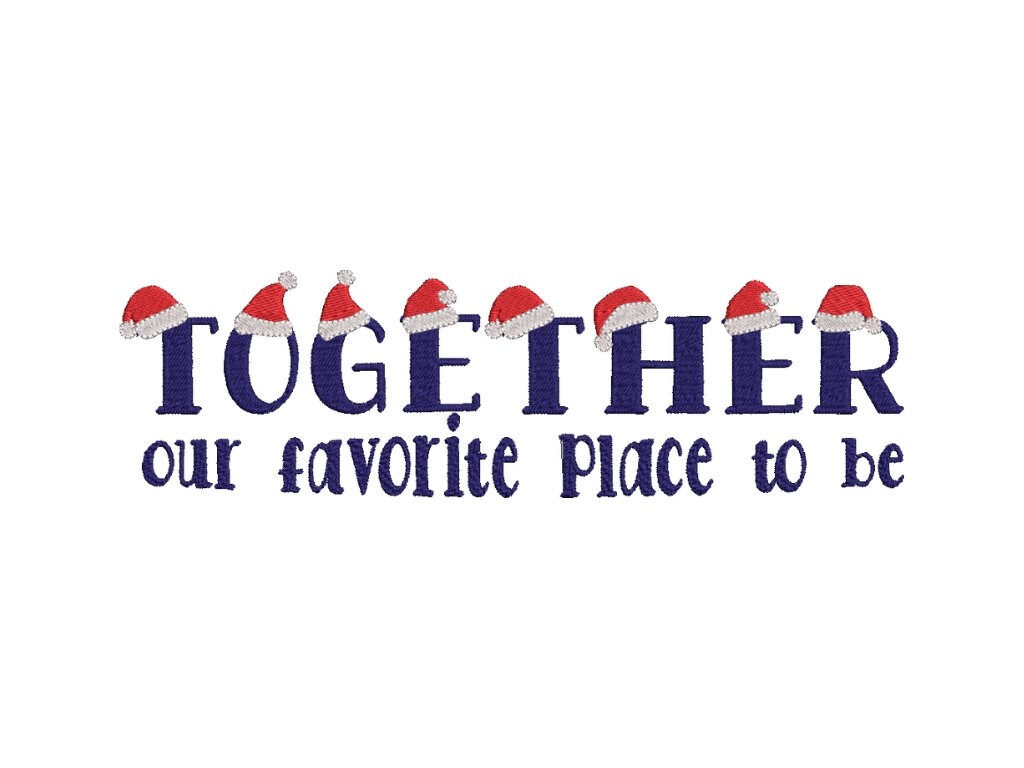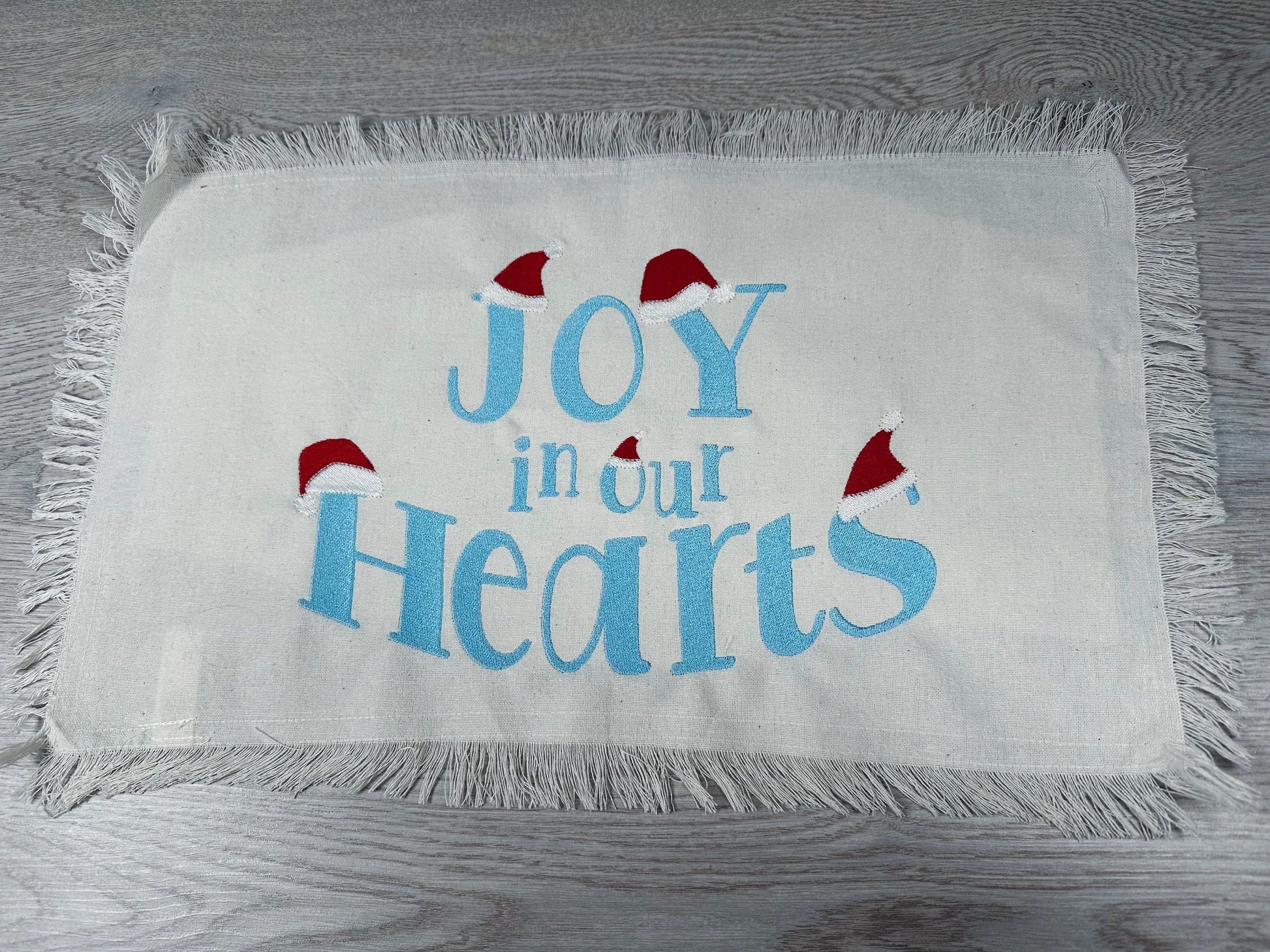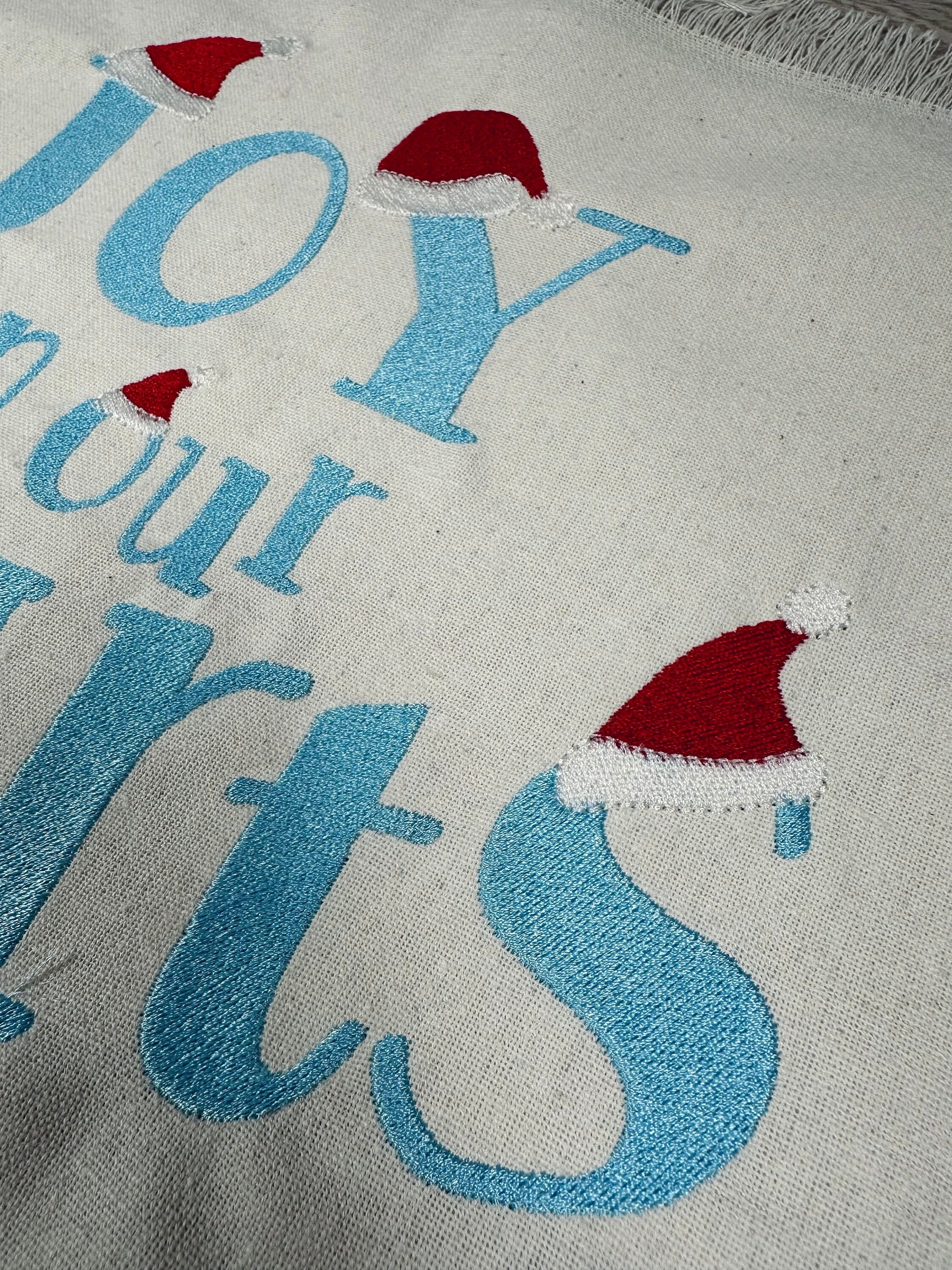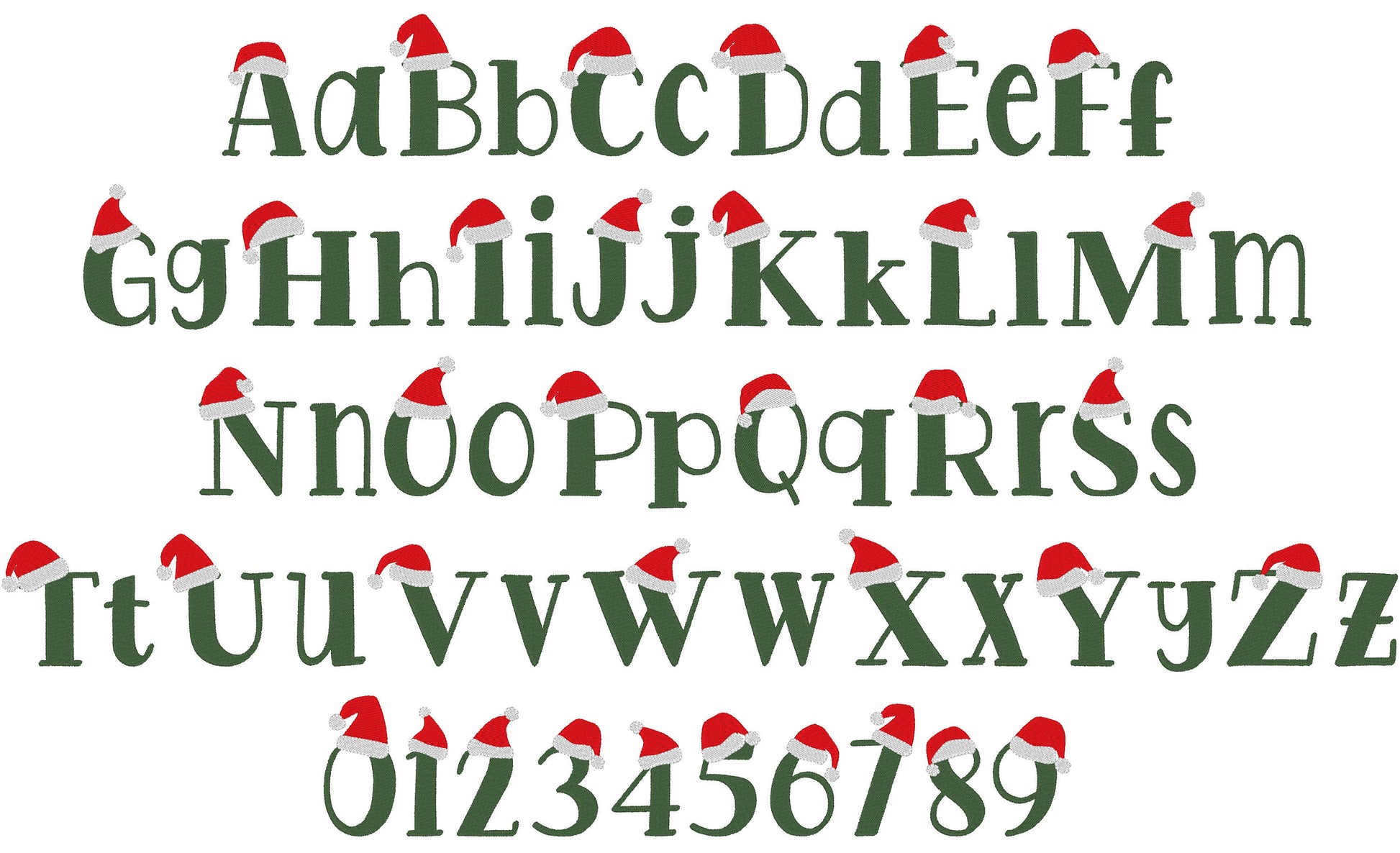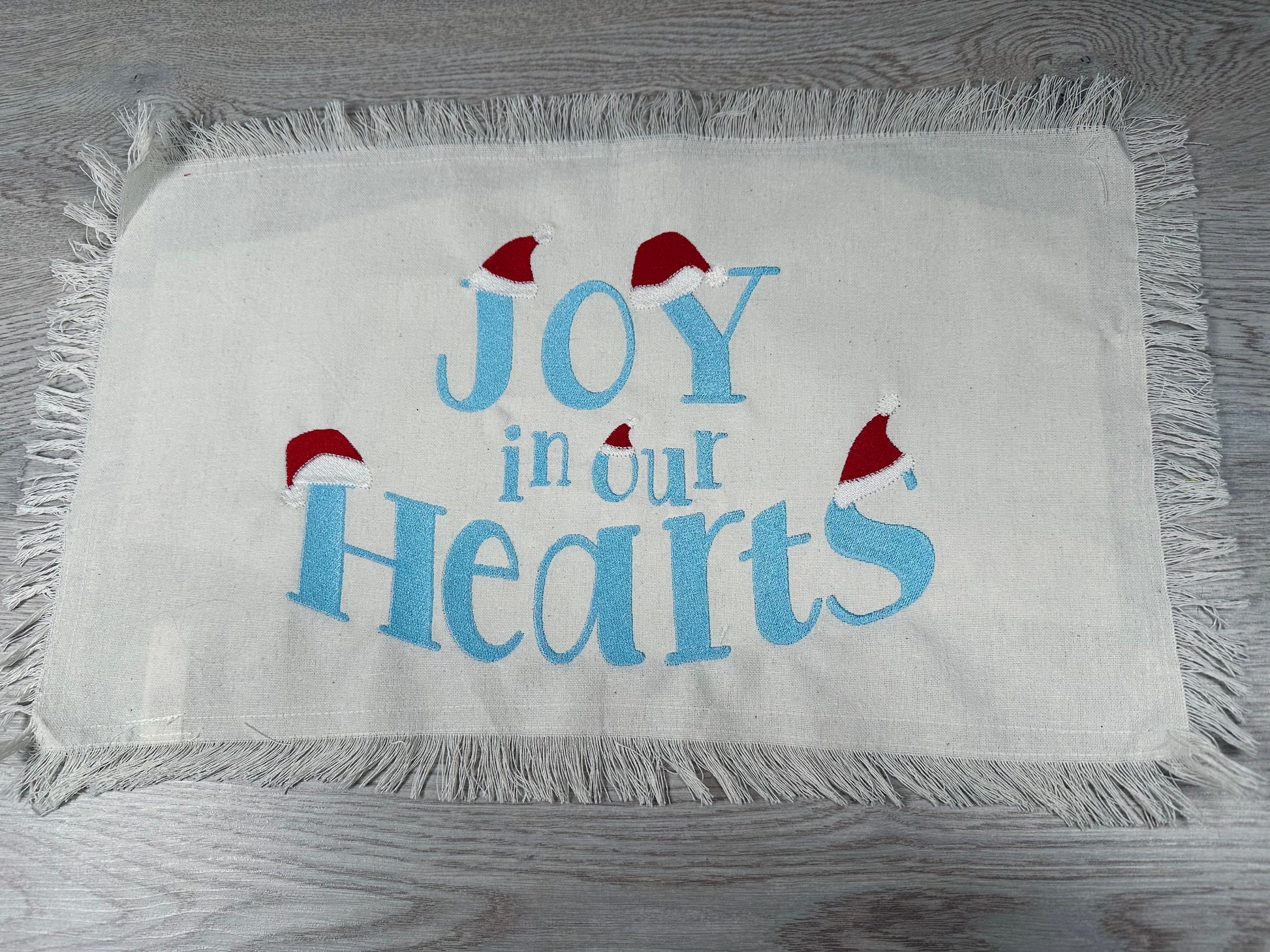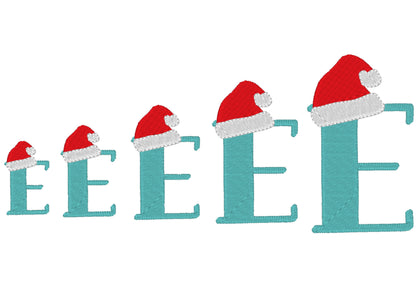
Or click to open the linkA festive Christmas font with a Santa hat, in fill stitch, for holiday names on stockings, sweaters and gifts.
Uppercase and lowercase letters and numbers in five sizes: 1.2, 1.6, 2, 2.5 and 3 inches.